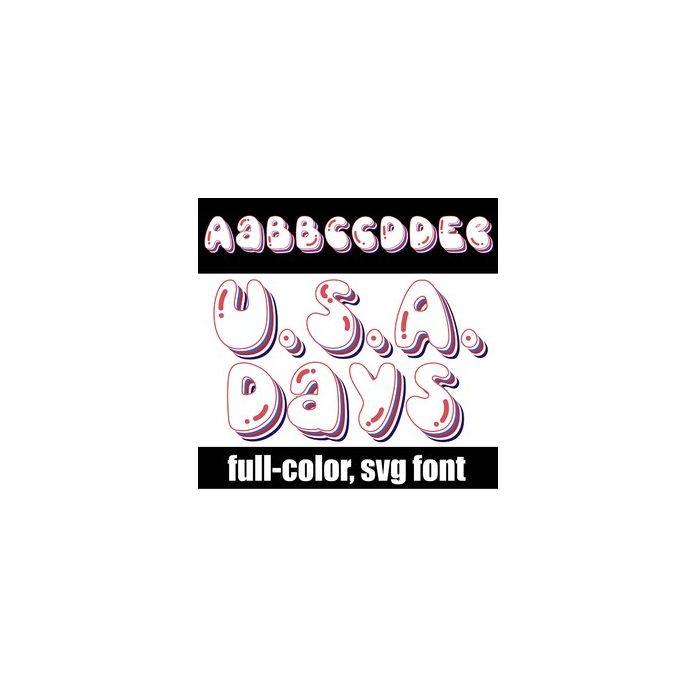
This retro font feature a rainbow of patriotic colors on each letter. This font works best for titles, displays, posters and more. Please note color fonts will show as black in non compatible programs. This font type is compatible with Silhouette Studio..